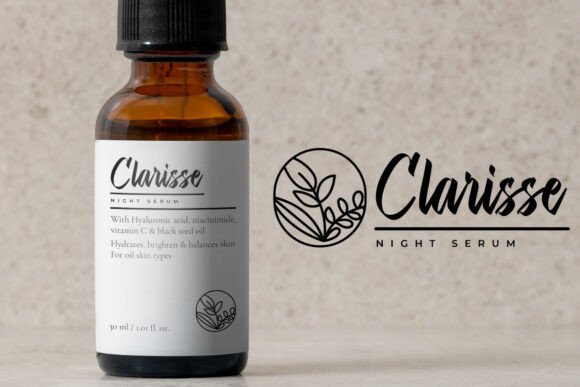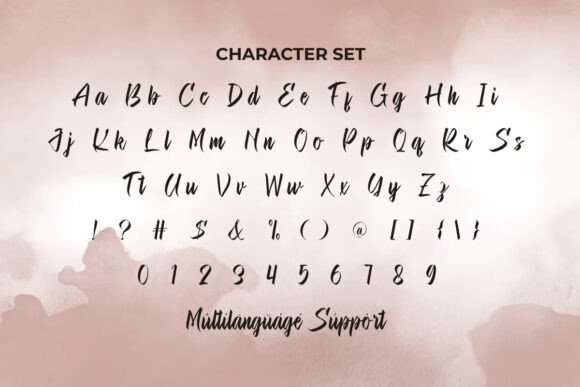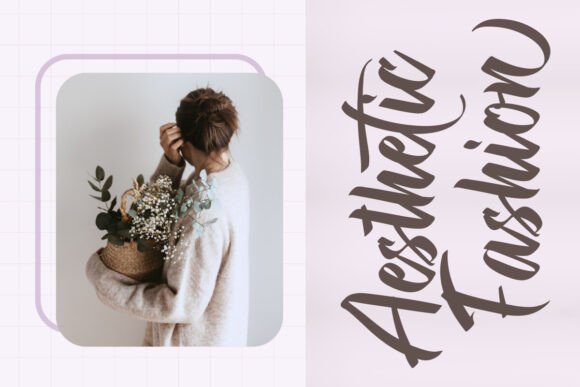
Introduction to Sad Theme Font
Sad Theme is a bold brush script font that blends raw emotion with expressive style.
With thick strokes, natural flow, and handcrafted texture, this typeface brings a personal, heartfelt touch to quotes, album covers, posters, and social media graphics Despite its name, Sad Theme isn’t just for moody projectsβ€”it’s also perfect for anything that needs a handwritten look with attitude and soul.